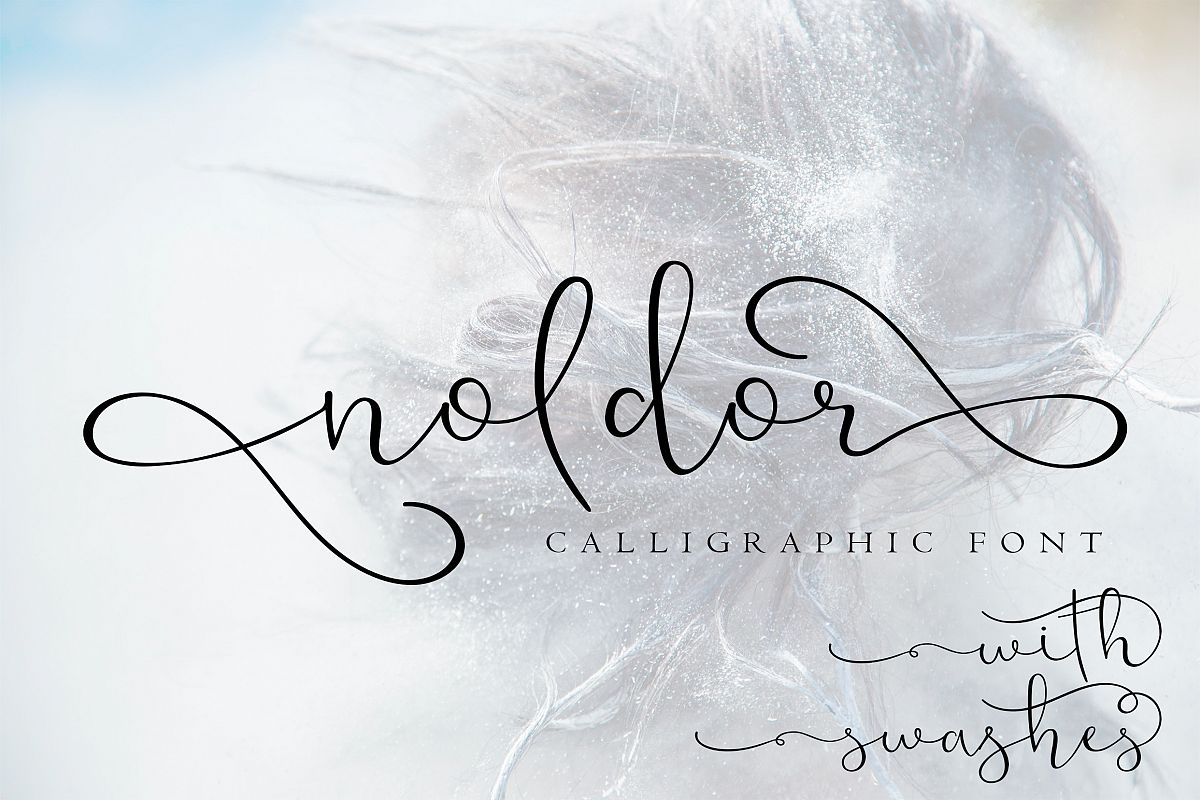
Noldor - calligraphy font with swashes
“Noldor” is a playful and elegant handwritten font in calligraphy style. Perfect for logo in signature style, branding projects, invitations, greeting cards, product packaging, DIY projects, home decor, quotes, posters, kids accessories and so much more!
Noldor includes 13 lowercase stylistic sets with beginning and ending swashes and ligatures that can be accessed with any application (PUA Encoded). Some alternative sets can also be used in the middle of a word. Switched-on Contextual Alternates OpenType feature automatically alternates letters between basic and stilystic set 1 for more natural look. You need install otf file to get access to all features.
Noldor consists of 457 glyphs, including alternatives and ligatures.